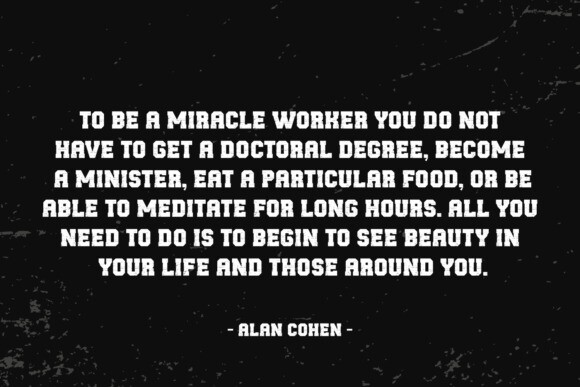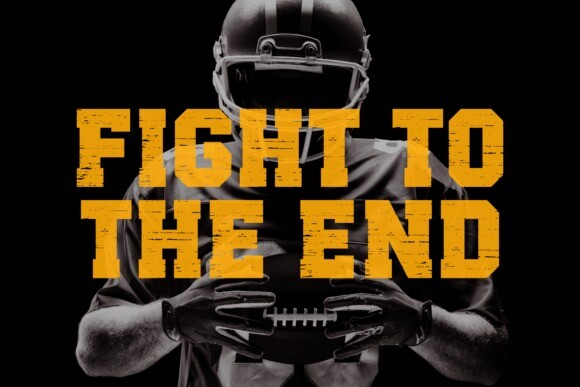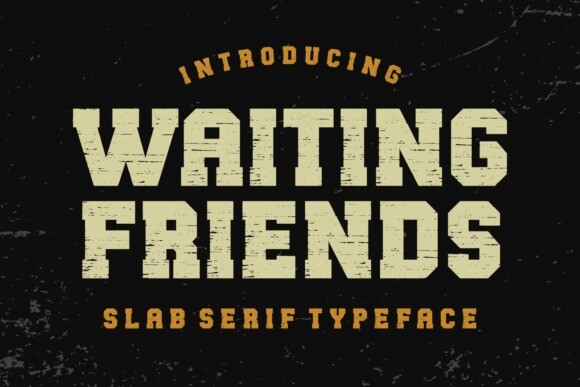
Waiting Friends Font
Waiting Friends Font is a friendly and approachable slab serif font that brings a touch of warmth to your text. With sturdy, yet inviting letterforms, it’s perfect for creating a sense of reliability and connection. Use Waiting Friends to add a touch of familiarity to your designs, from headlines to body text. Its straightforward style makes it versatile for a variety of projects, making it the go-to choice for creating a welcoming and reliable impression in any context.